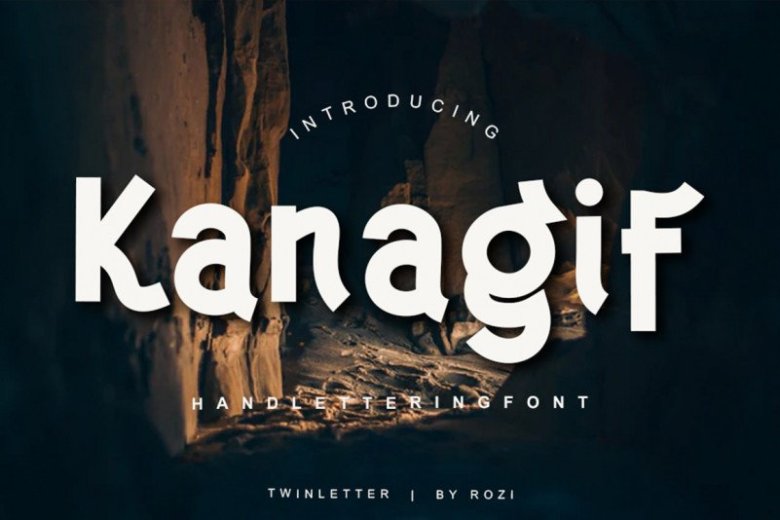
Kanagif Font Free
Kanagif is a bold sans serif font, carefully handcrafted to become a true favorite. Kanagif is the perfect font for making original and outstanding designs.
Kanagif will look so good on your poster, Blog, Website, tshirt and any other fun projects you are working on.